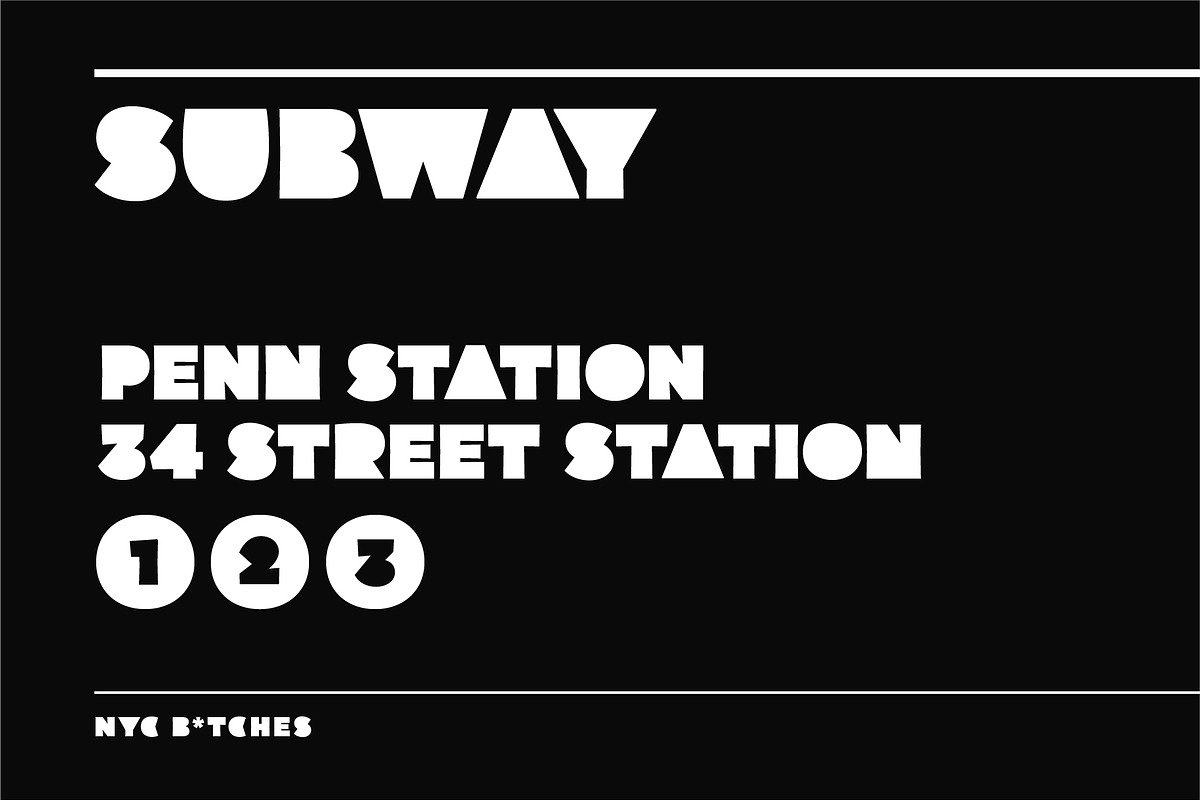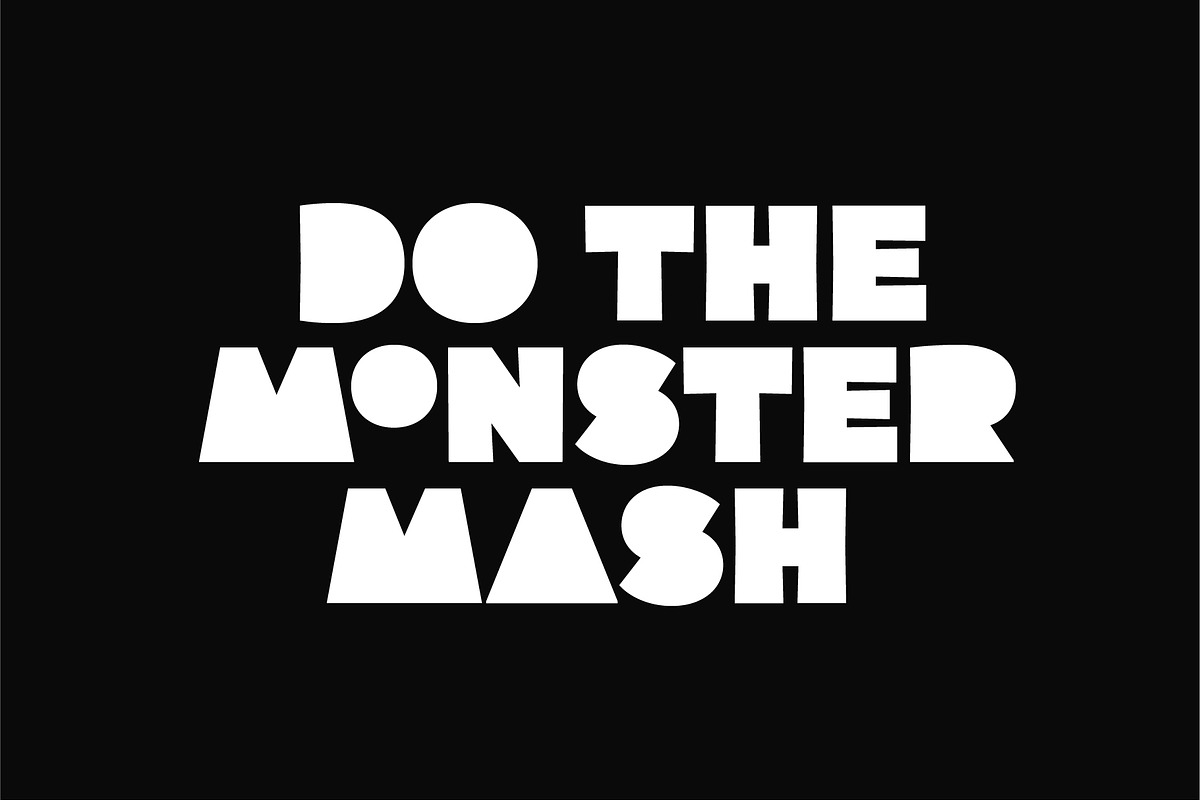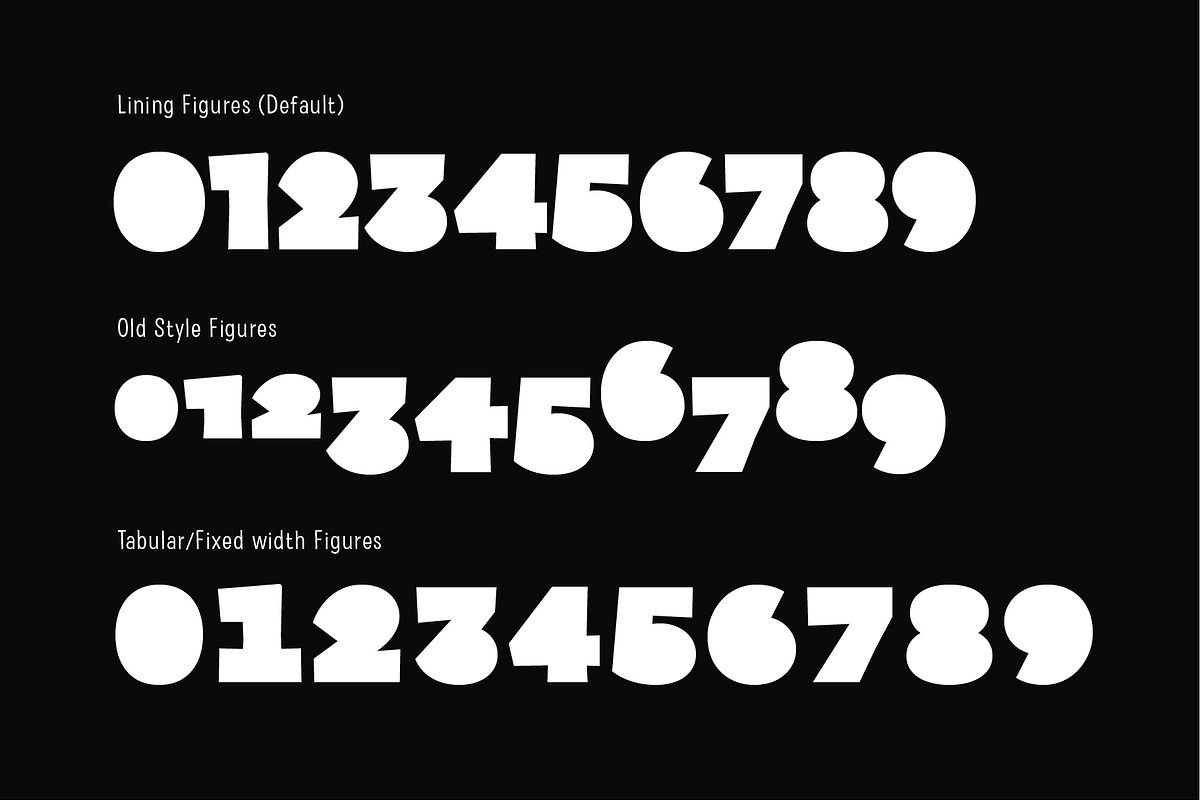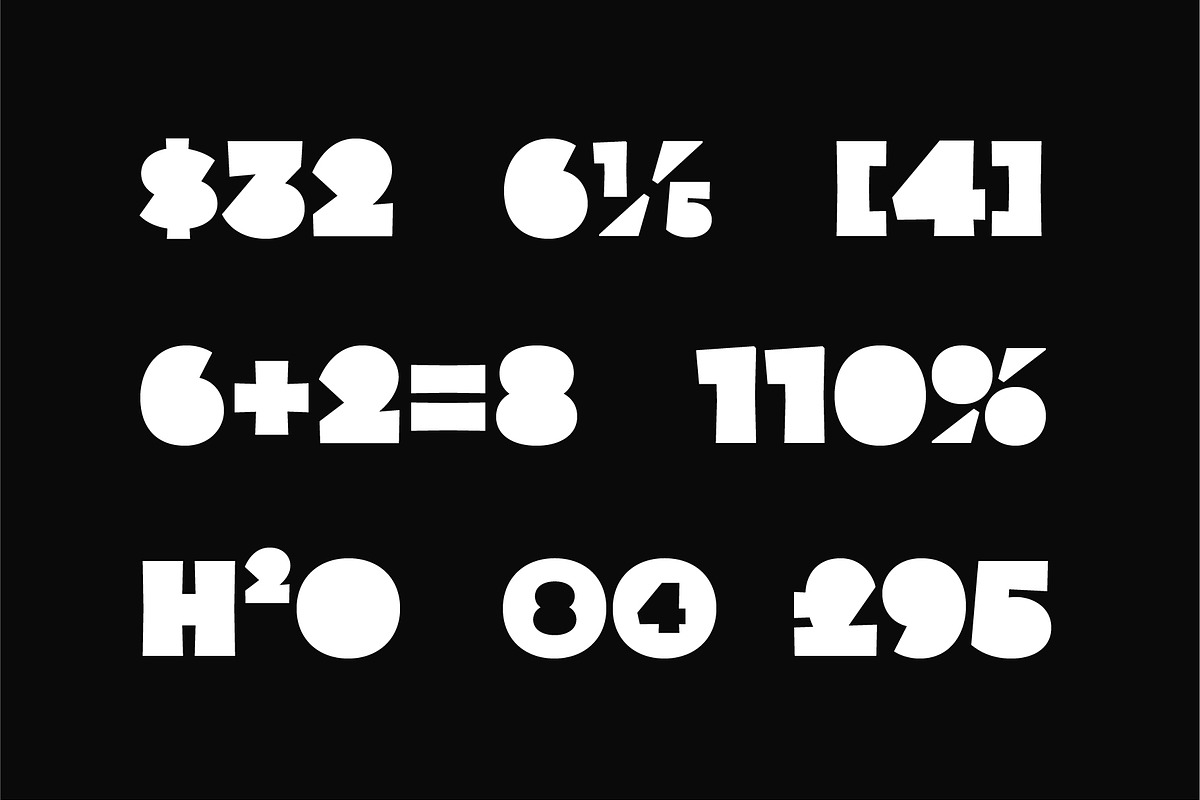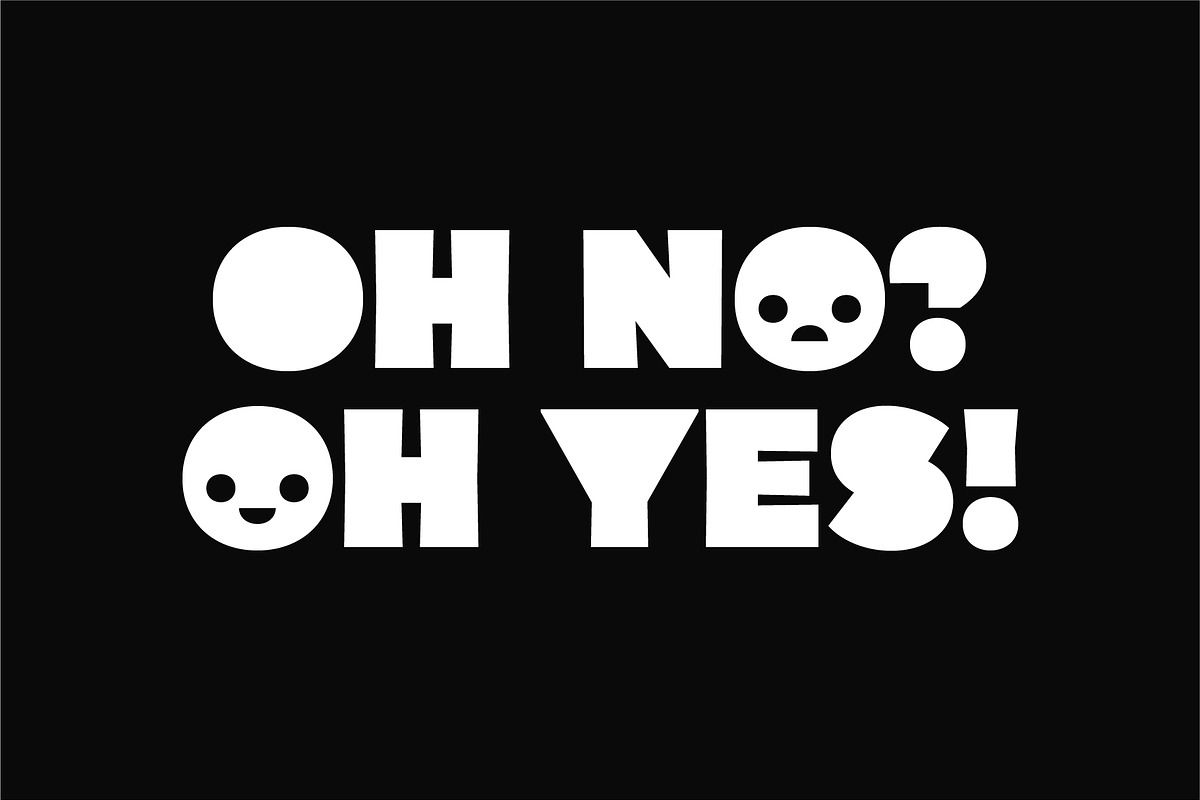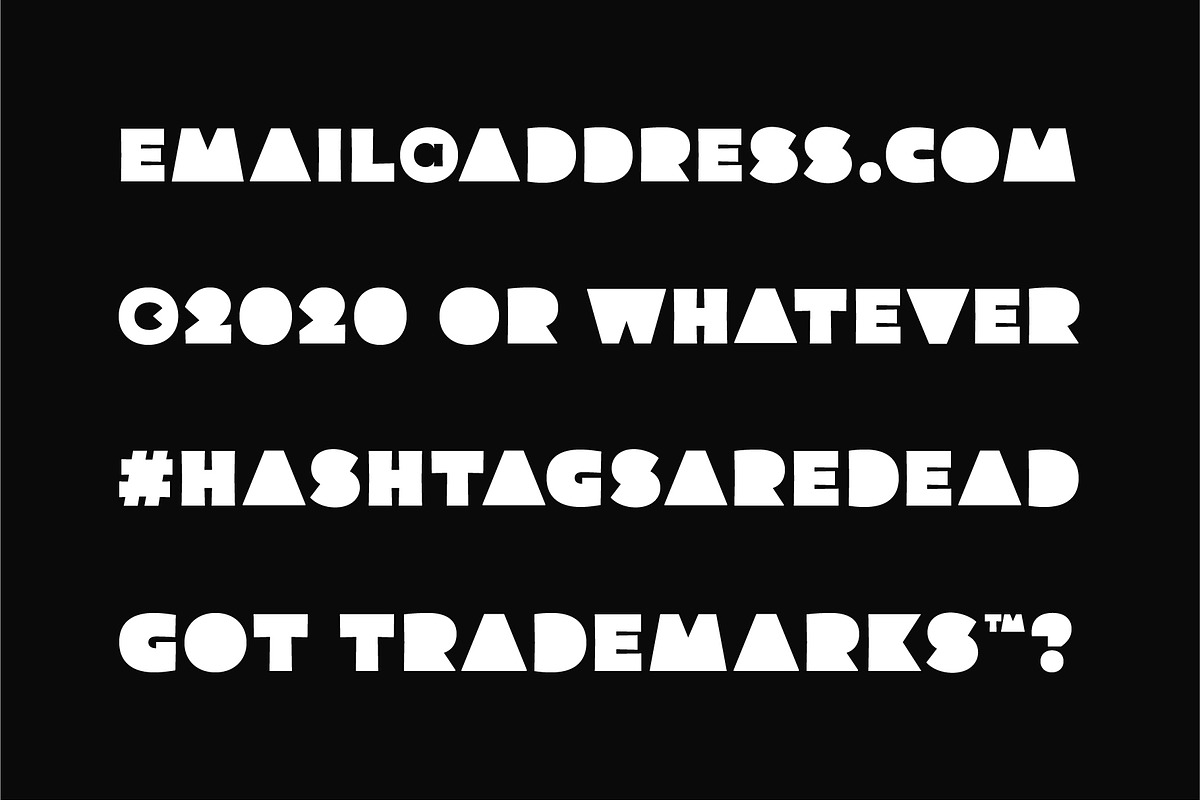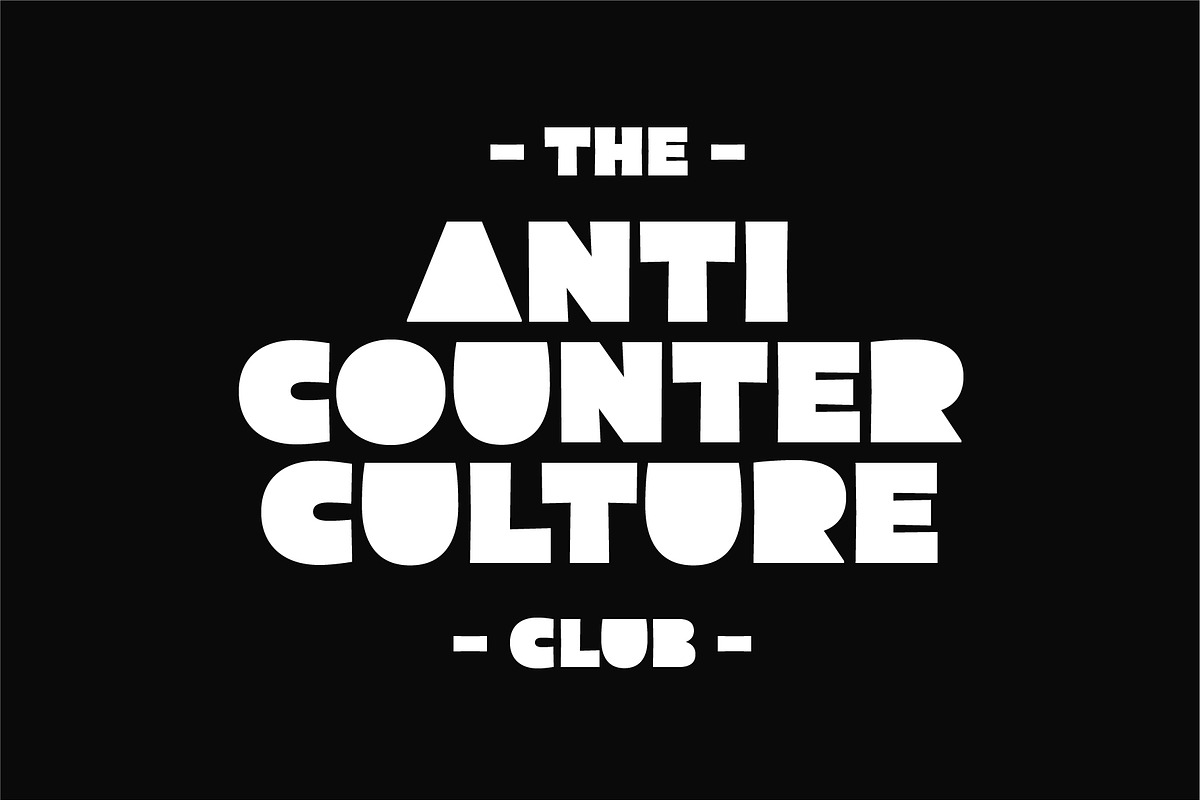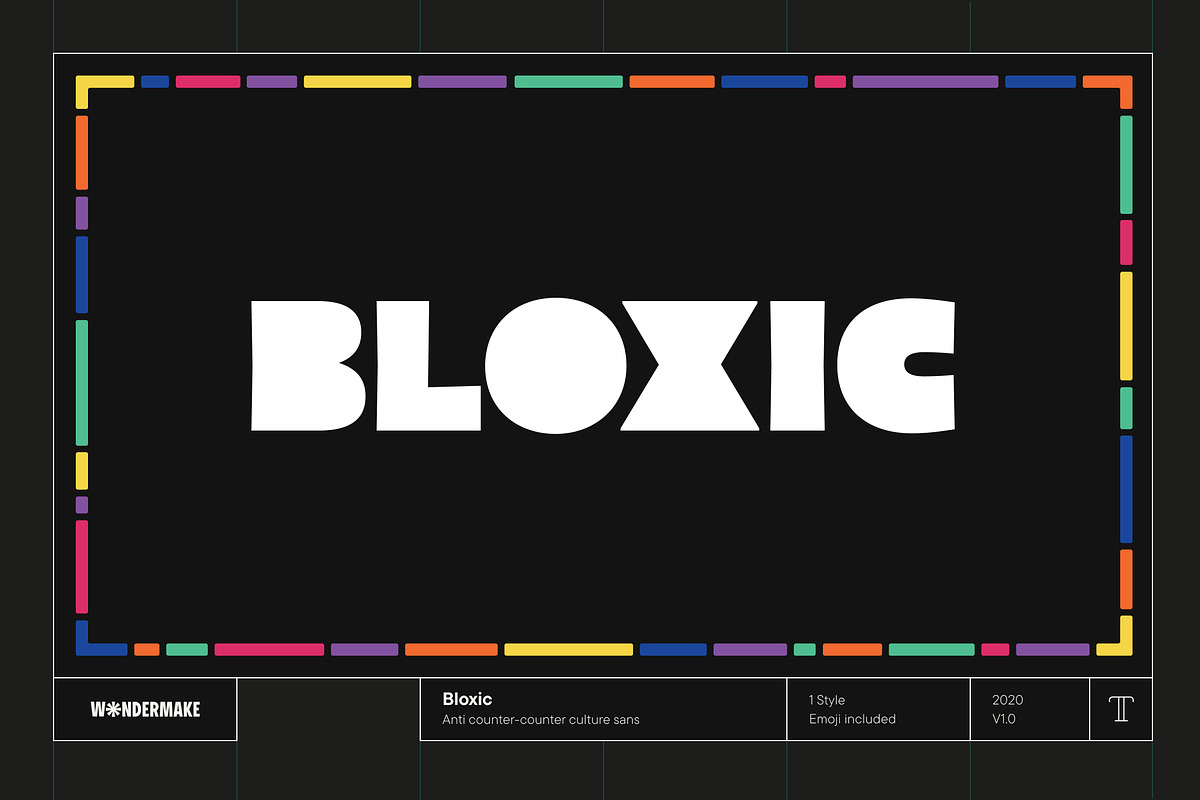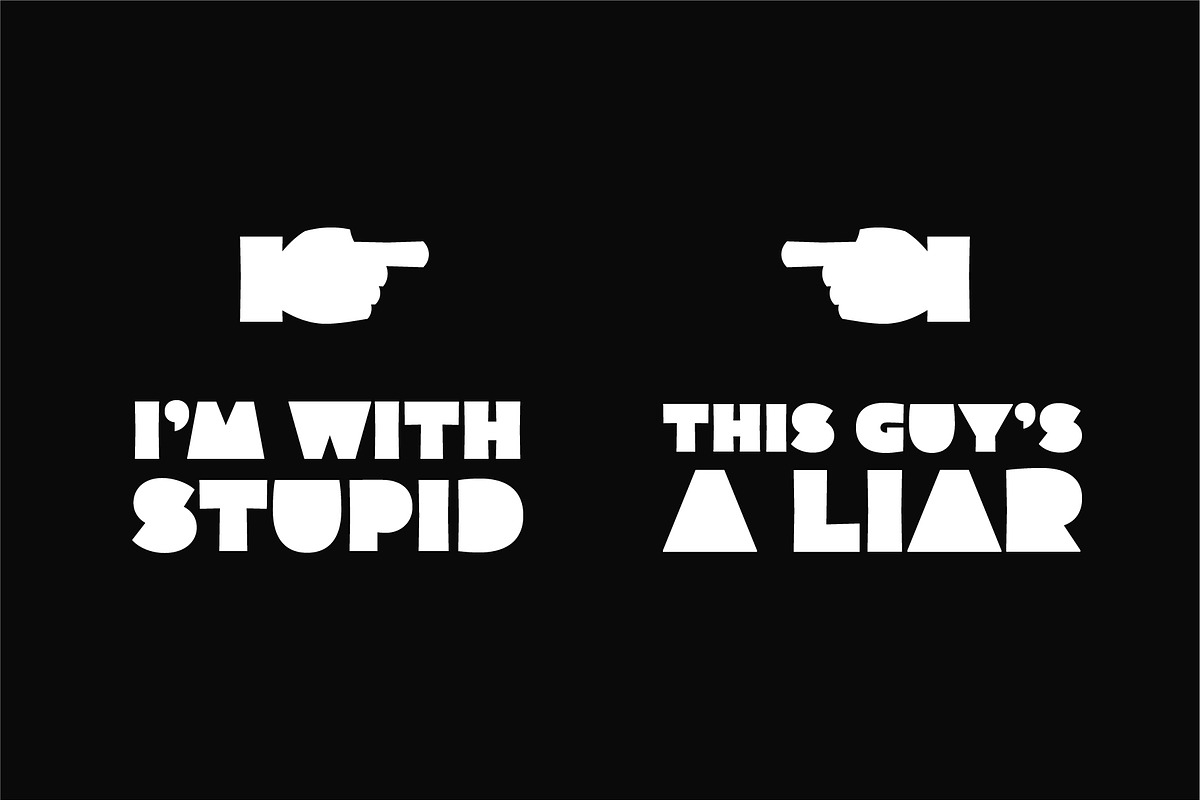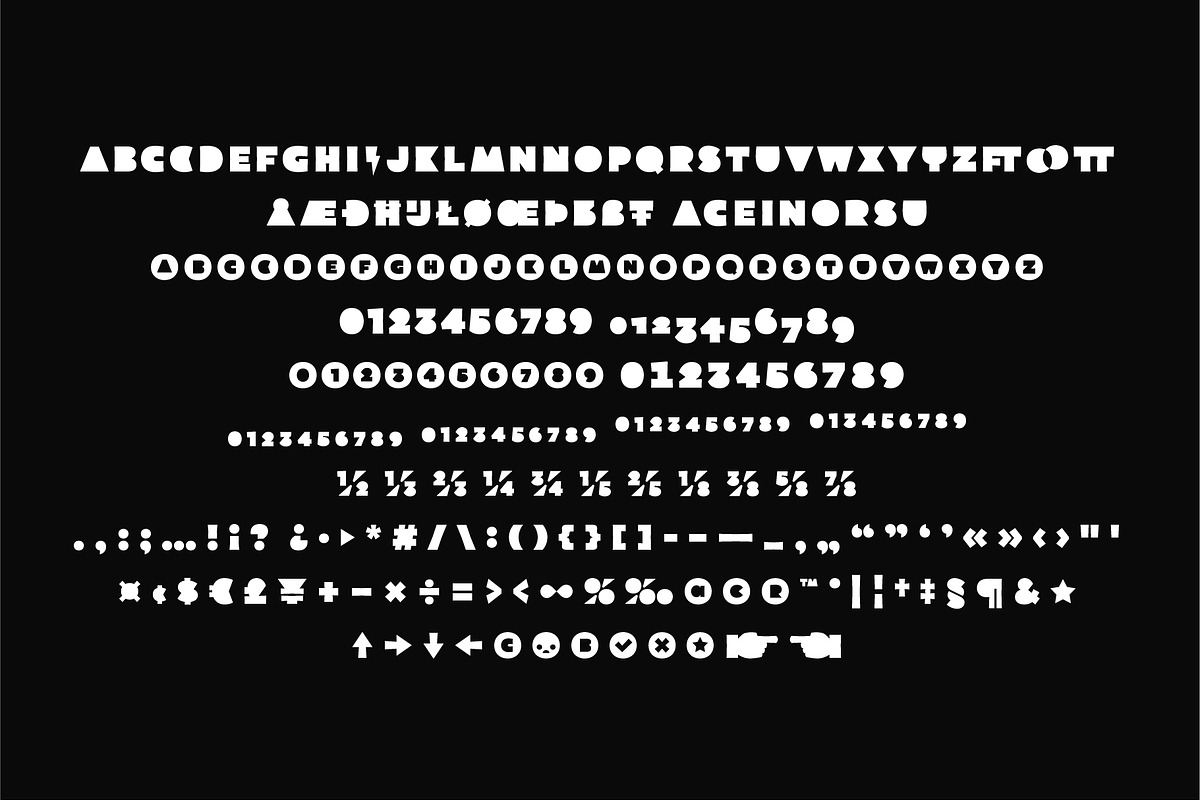
Bloxic
Bloxic is a chunky, counter-less display typeface, packed full extra characters and some bonus icons! Bloxic comes packed with over 320 glyphs, including stylistic alternate characters, circled numbers, and a whole bunch of useful symbols and stuff.
- 1 weight
- Handful of pictograms and icons
Language Support:
Basic latin only, and a limited character set.
Open type Features
- Custom and Arbitrary Fractions
- Lining Figures
- Tabular Figures
- Old Style Figures
- Ordinals
- Discretionary Ligatures
- Pictograms!